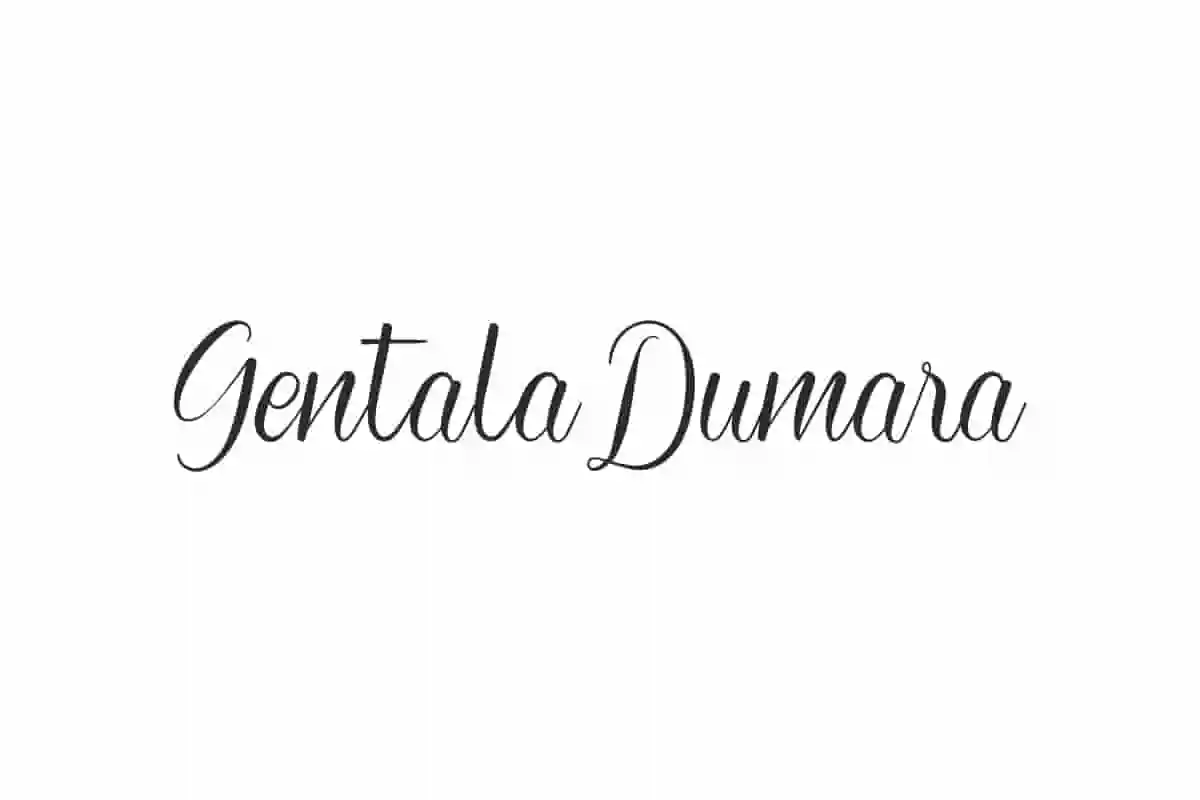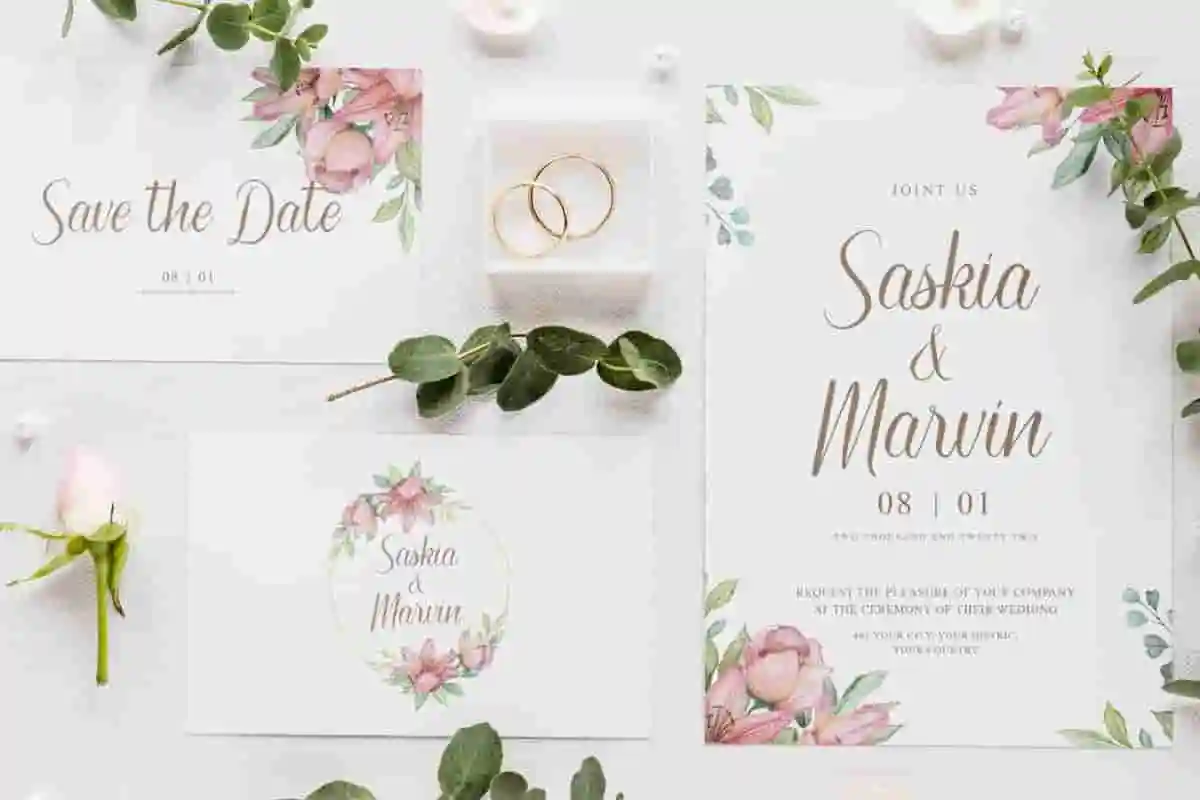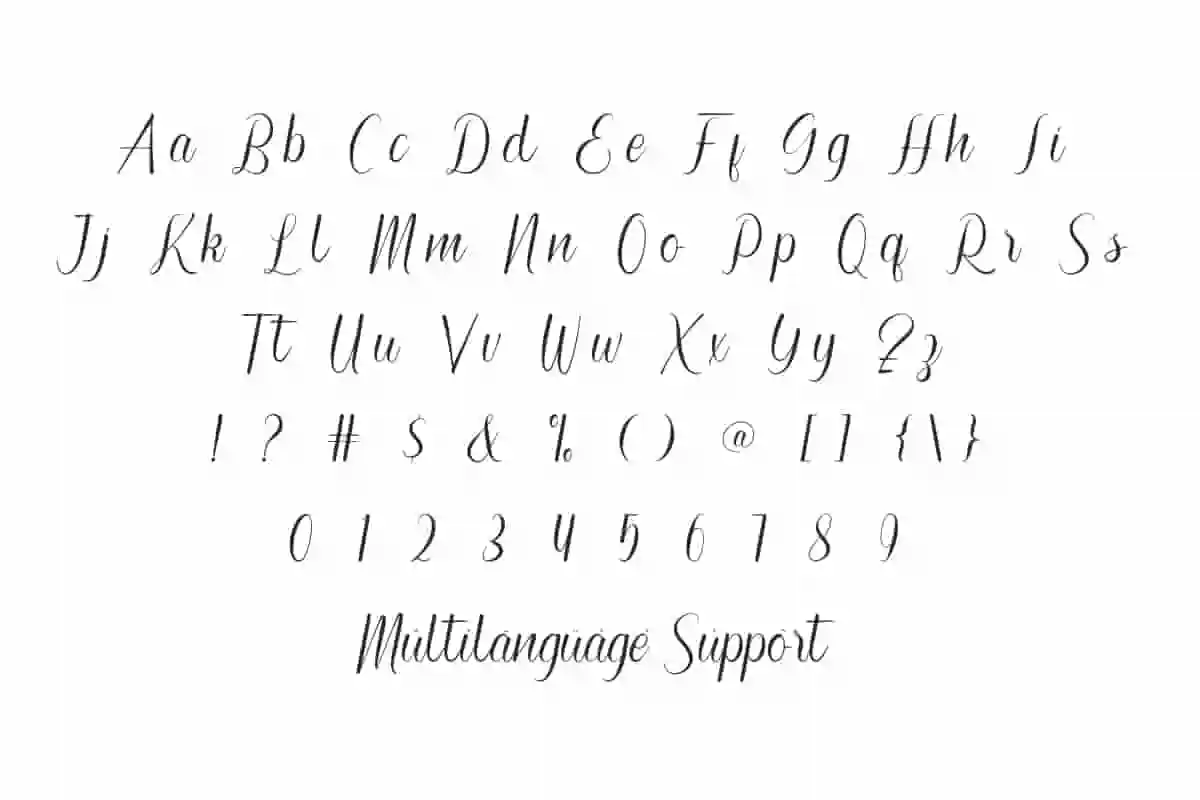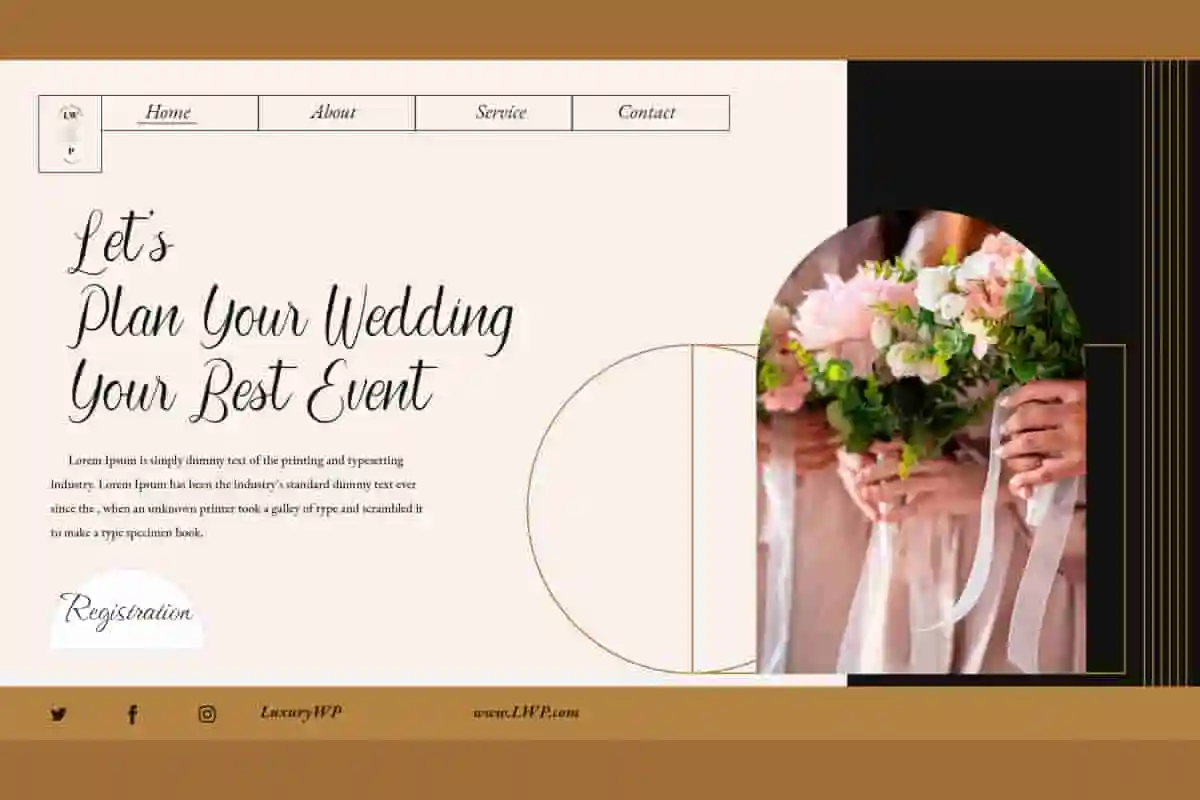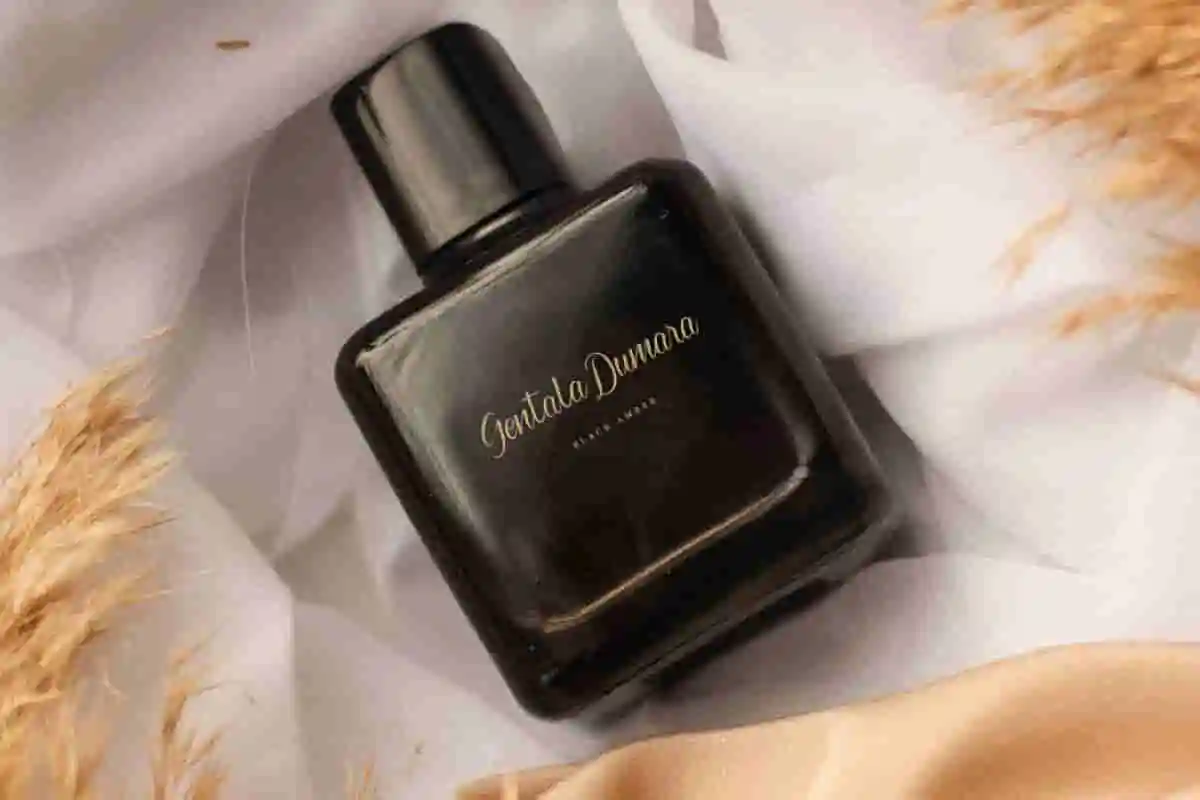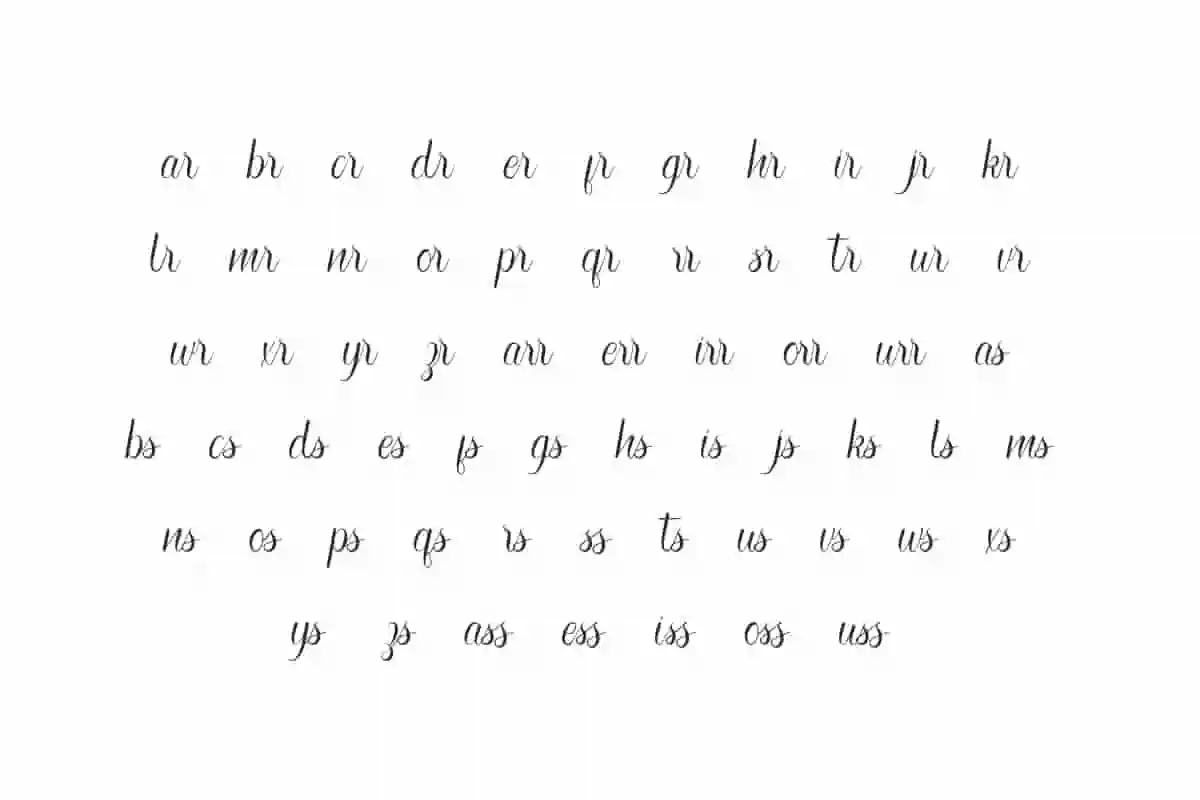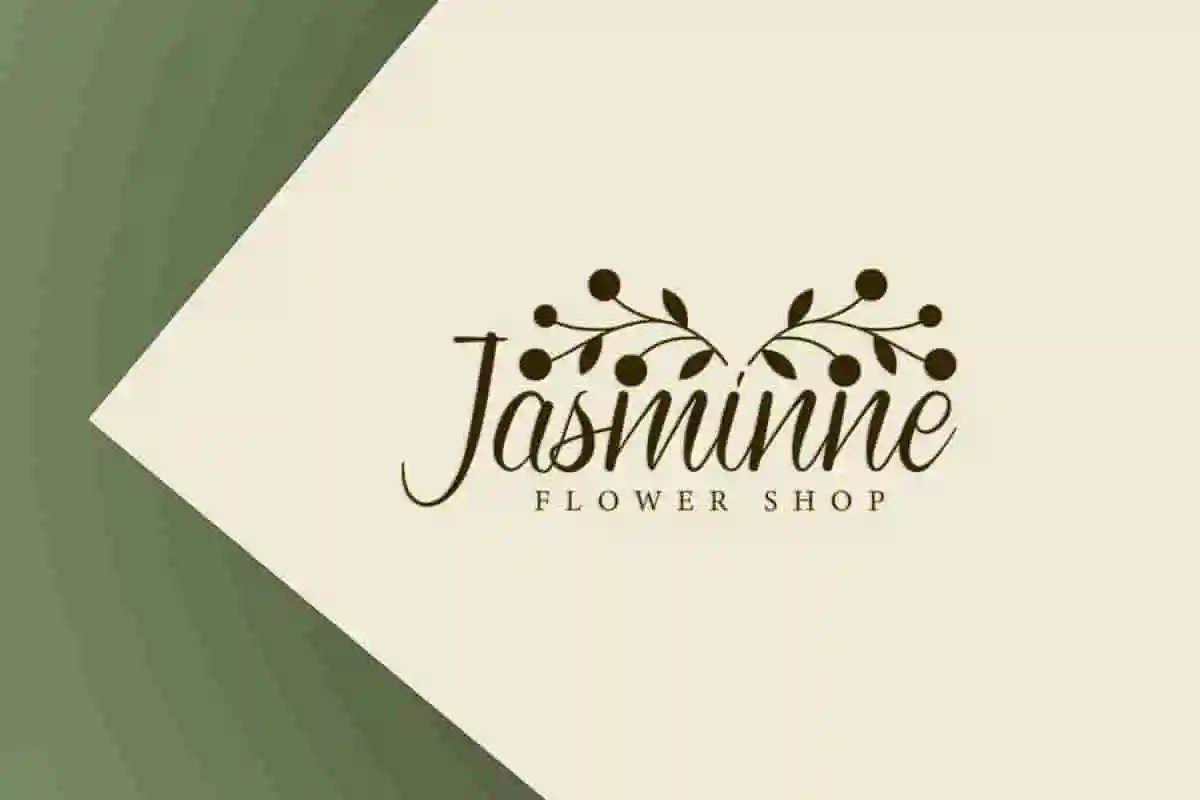
Gentala Dumara Font is a beautiful classic script with a relaxed and informal calligraphy typeface. You need to have this beautiful font in your collection.
Gentala Dumara Font is a beautiful classic script with a relaxed and informal calligraphy typeface. Comes with a large collection of ligatures that support typography performance to produce the creative designs you need, including brand logo, brochure, card designs, cover, header, label product, quotes, screen printing, stationery, sticker, template mockup, titles, watermarks, website, wedding invitations, or wrap design.
Gentala Dumara Font includes a complete set of Basic Uppercase and Lowercase Characters, Numbers, Punctuation Marks and Symbols. Also with the Ligature character which comes with different options for you. This letter will be suitable for elegant and charming industrial needs, such as art quotes, boutique, cosmetic brands, fashion, florist, graphic design, home decor, printing publishing, promotions and advertising, special events, wedding planners and much more.